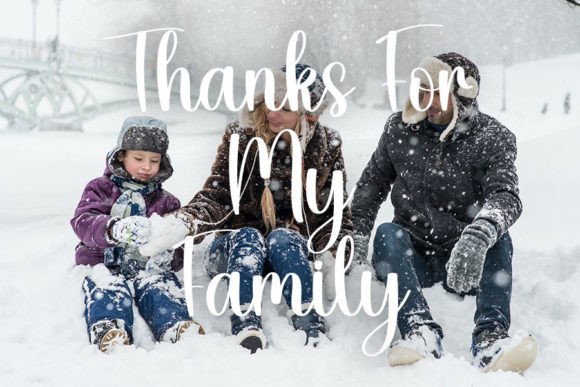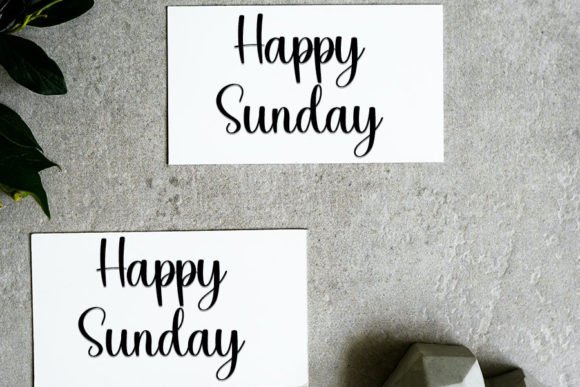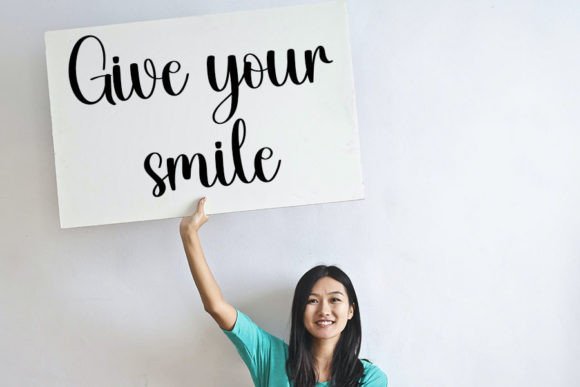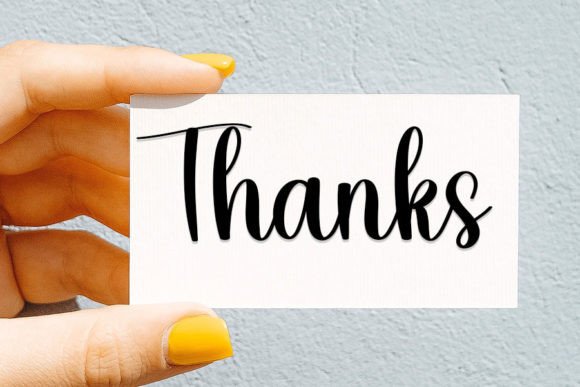
Meet Your New Favorite Font: Bunny Font
Have you ever sat down with a blank sheet of paper, a blank screen in front of you, and a blank mind? The pressure to create something amazing can be overwhelming, but sometimes all it takes is one simple spark to ignite your creativity. For me, it was the moment I stumbled upon the Bunny Font. Its playful, handwritten style instantly captured my attention and I knew I had to learn more.
Bunny Font is a versatile and charming font designed to bring a touch of natural elegance to your next project. Whether you’re working on a greeting card, a logo, or a headline, this font is guaranteed to add a warm and inviting feel to your design. As a designer, I can attest to the value of having a reliable and easy-to-use font like Bunny Font in your toolkit. Its simplicity and versatility make it a valuable asset for any project, and I’m excited to share more about why it’s a must-have for designers like you.
Bunny Font Key Features
- Unique Characteristics: The font features a playful, whimsical design with a mix of bold and delicate lines, making it perfect for creating eye-catching headings and titles.
- Character Set: Bunny Font includes a wide range of characters, including uppercase and lowercase letters, numbers, punctuation marks, and special characters.
Bunny Font Review
Overall, I think the Bunny Font is a cute and playful addition to any design project. ✨ It’s perfect for projects that need a whimsical touch, such as children’s books, nursery decorations, or even Easter-themed advertisements.
The font’s rounded edges and soft lines make it easy to read, even at smaller sizes. The letterforms are well-proportioned, and the x-height is just right to create a sense of balance.
Here are some of the things that work well with the Bunny Font:
- ✨ It’s highly legible, even in small sizes.
- ✨ The font is easy to customize with a range of color options.
- ✨ It’s a great choice for projects that need a fun and playful vibe.
- ⚠️ The font may not be suitable for professional or formal projects.
- ⚠️ It may not be as versatile as other fonts for projects that require a more serious tone.
- ⚠️ Some users may find the font too childish or cutesy.
Overall, I think the Bunny Font is a great choice for the right project. It’s a fun and playful font that can add a touch of whimsy to any design. However, it may not be the best choice for every project, so be sure to consider the tone and audience before using it.
For the most effective use of Bunny Font, use it for playful and whimsical designs, such as:
– Children’s party invitations
– Cartoon characters
– Gift tags
Remember to use Bunny Font sparingly to avoid overwhelming the design.